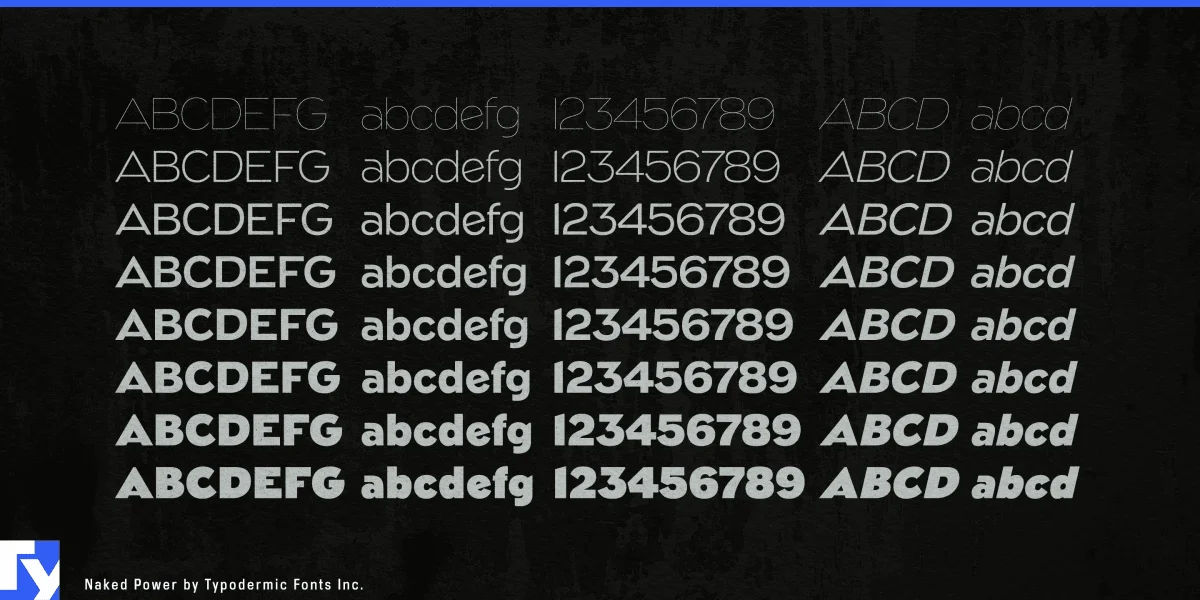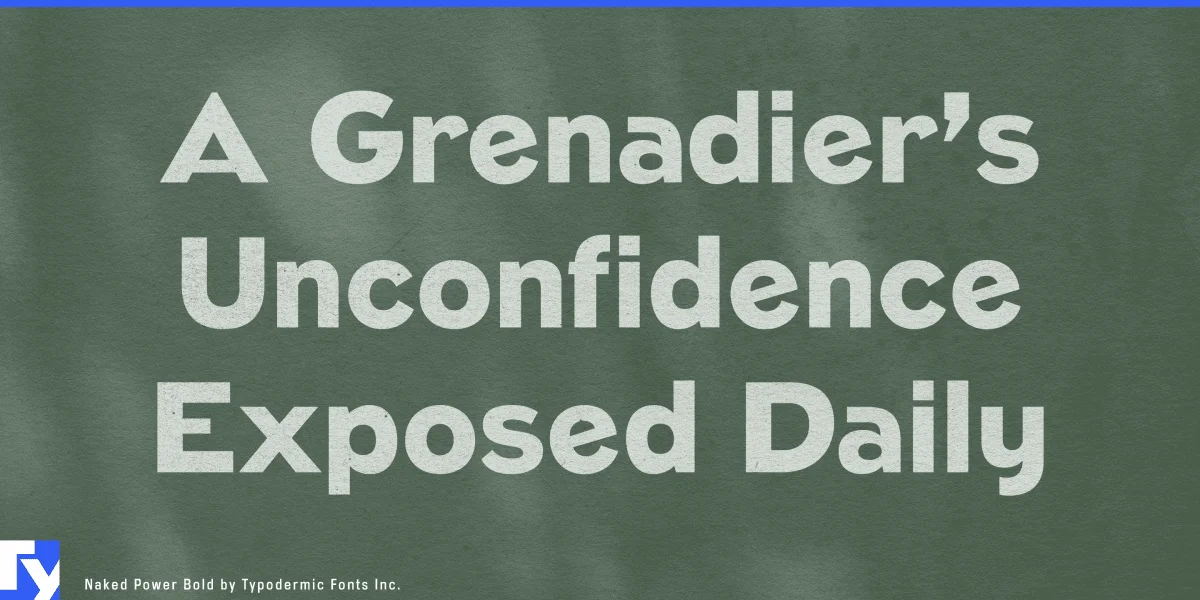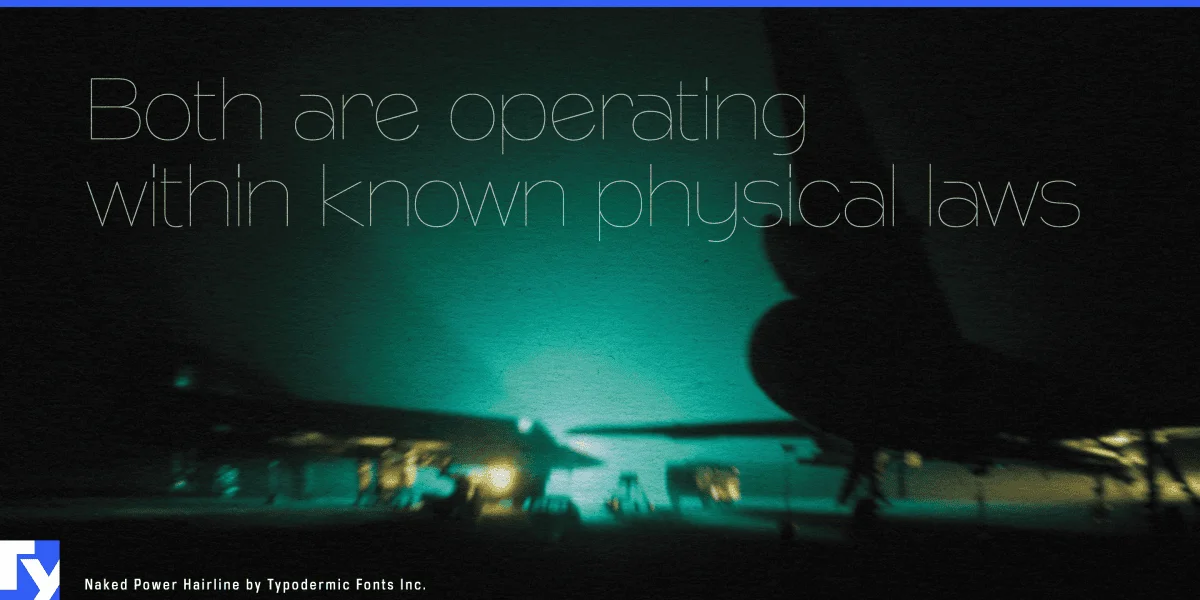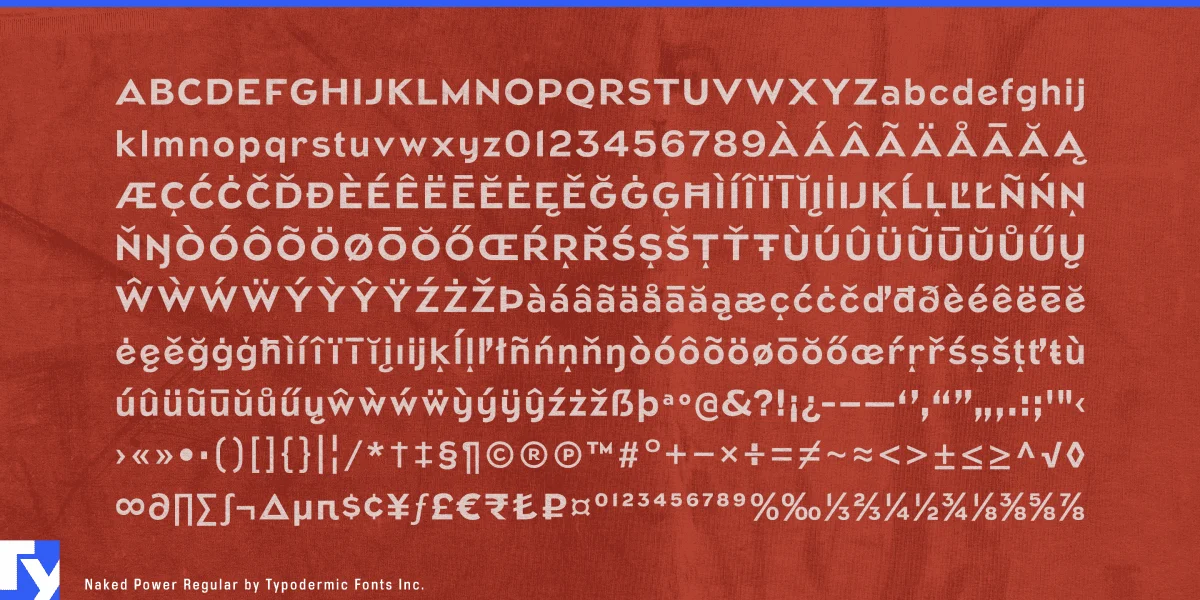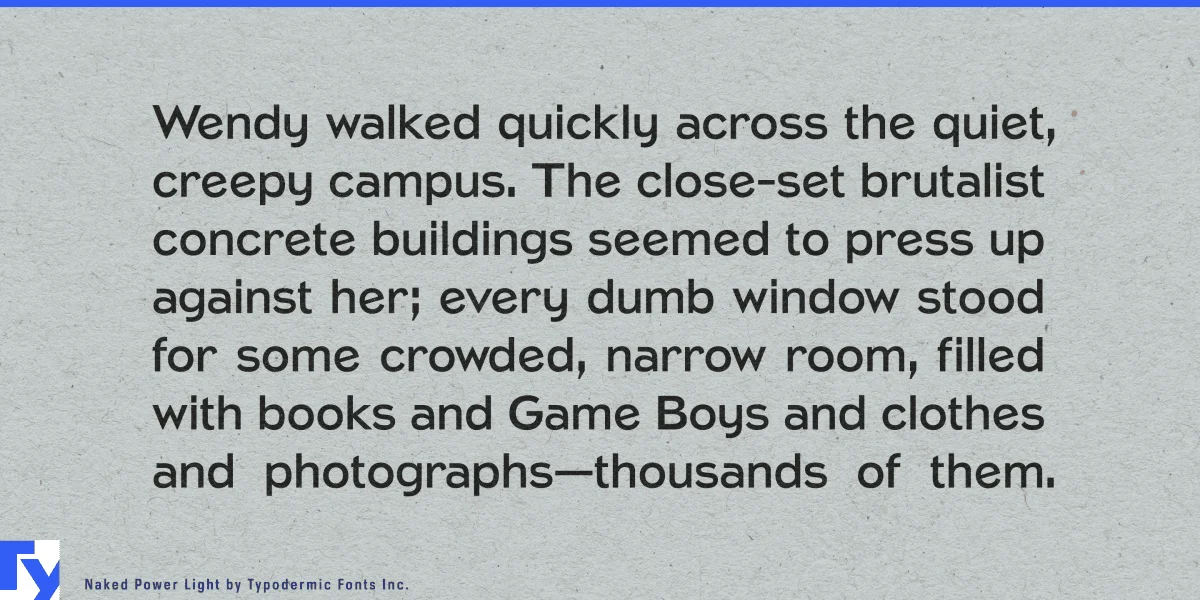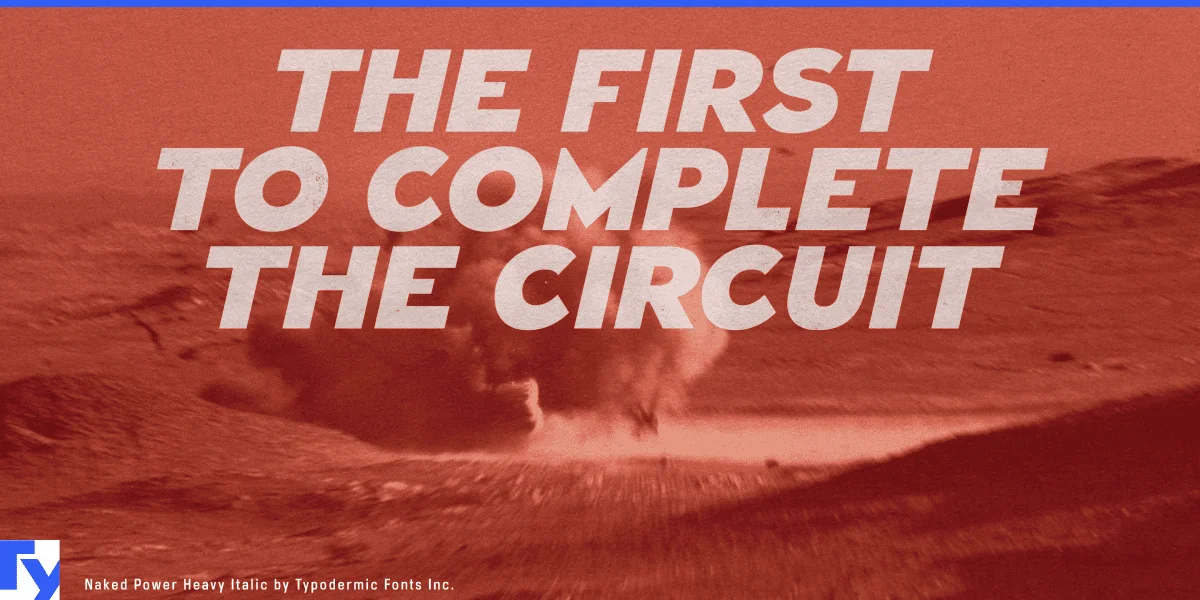
Naked Power is a geometric sans serif inspired by Morris Fuller Benton’s 1934 Eagle Bold. Known for its commanding presence in the National Recovery Administration’s Blue Eagle logo, that historic design carried a sense of authority that still resonates today.
Naked Power builds on that legacy with a full alphabet and a wider stylistic range, allowing the design to move from refined editorial use to bold posters, signage, and campaign graphics. Strong verticals, squared counters, and softened joins give it a firm, confident voice that feels both historic and contemporary.